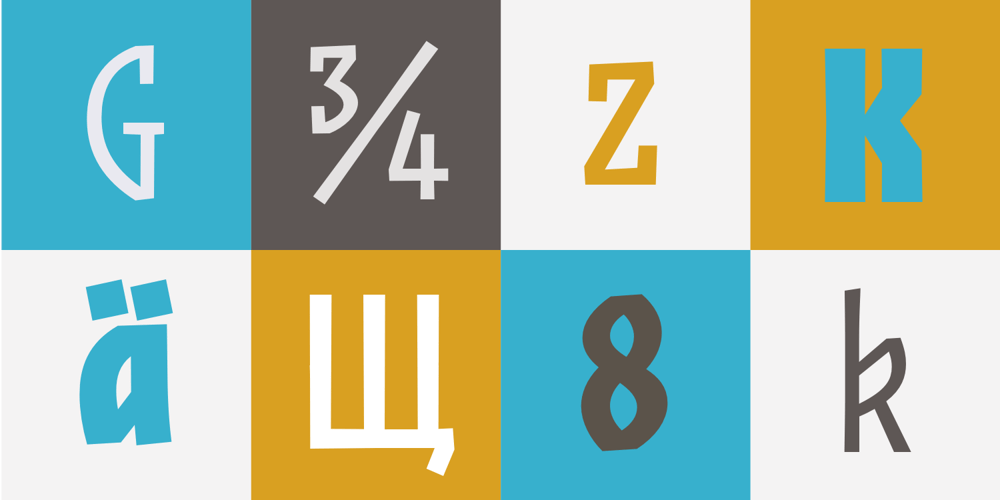
JAF Zalamander Font Family was designed by Tim Ahrens and published by Just Another Foundry. JAF Zalamander contains 12 styles and family package options. Blackletter, sans serif, graffiti, constructivism: all these influences are combined into a lively and dynamic – and somehow “disobedient” – typeface. Since blackletter fonts typically don’t look great when used in all-caps, Zalamander comes with a special Caps version that contains letter variants that combine nicely in uppercase. All fonts support Cyrillic.